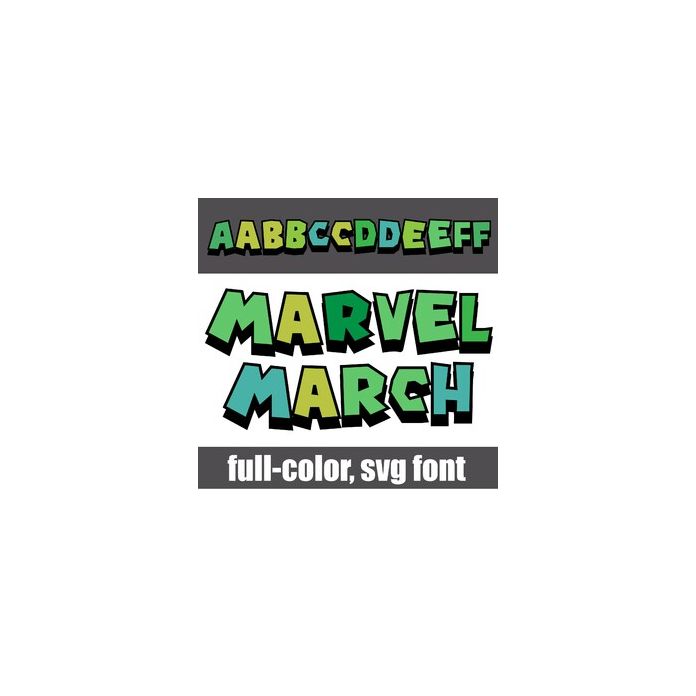
Marvel March Color Font
This full-color font is a typical video-game style font with blocky dark shadows and in a green color palette. There is an alt upper and lowercase with additional colors that you can access through Silhouette's glyph map. This font works best for titles, displays, posters and more. Please note color fonts will show as black in non compatible programs. This font type is compatible with Silhouette Studio.